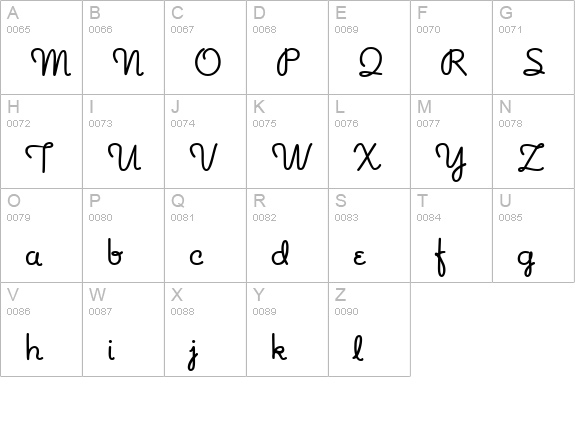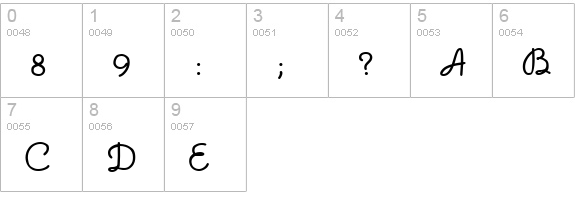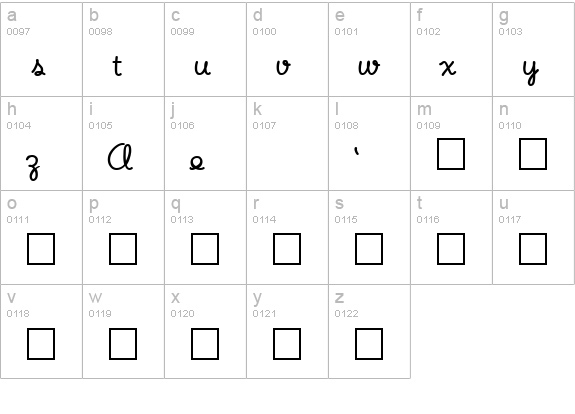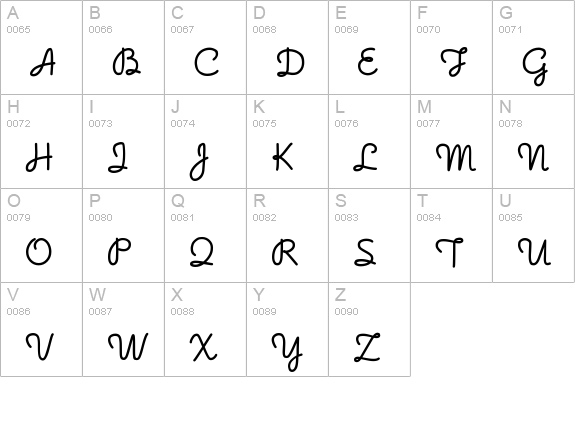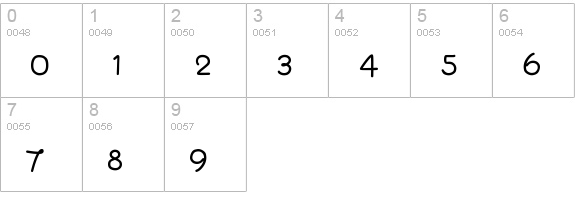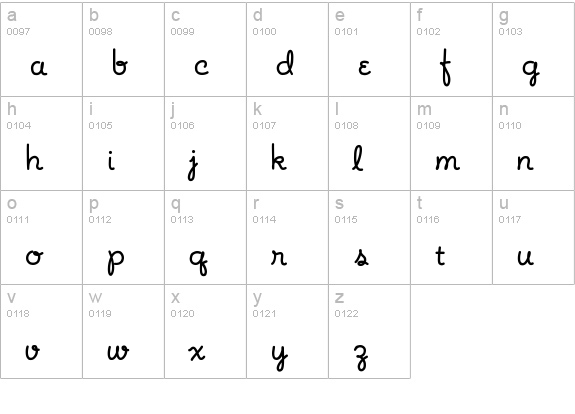
NoodleScript Font Details
NoodleScript font is a whimsical and playful typeface that brings a touch of fun to any design project. With its unique hand-drawn style and flowing lines, NoodleScript exudes creativity and charm. This font is perfect for adding a personal and friendly touch to invitations, greeting cards, posters, and more. Best of all, NoodleScript is available for free download at FontsMarket.com. This means you can easily access this delightful font and incorporate it into your projects without any cost. Whether you're a designer looking to add a quirky element to your work or someone simply wanting to make their messages more engaging, NoodleScript is a fantastic choice. Download it today and let your creativity flow with this free and delightful font.